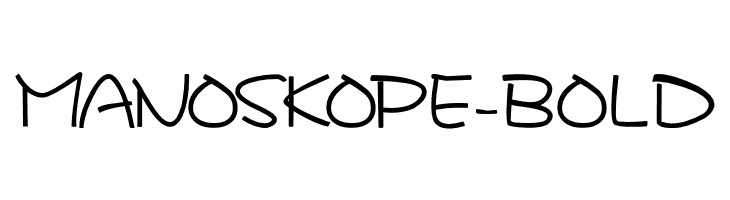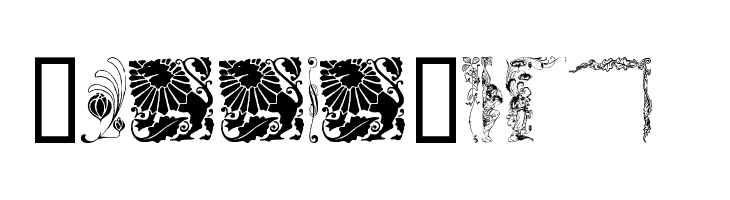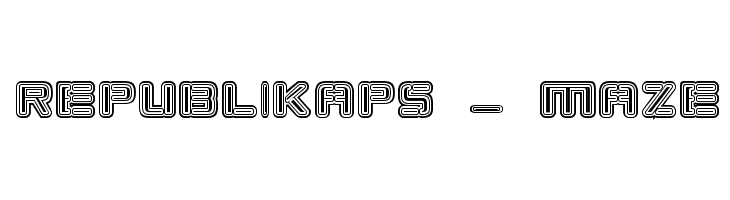
A bold, maze-like font with a modern, geometric style.
A bold, angular font with sharp, spiky edges for a dynamic and intense look.
A playful, handwritten font with smooth, rounded edges and a casual style.
A bold, expanded font with a futuristic, geometric design.
A creative and eclectic display font with varied, artistic letterforms.
A playful, hand-drawn font with a bold and quirky style.
A whimsical, star-adorned decorative font with thin lines and playful design.
A bold, cursive font with dynamic curves and expressive loops.
A decorative typeface inspired by Dia de los Muertos, featuring festive and thematic symbols.